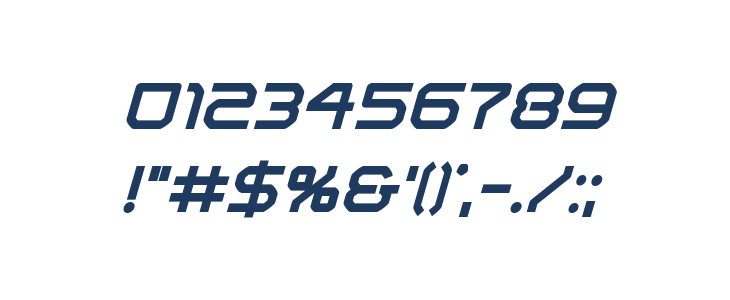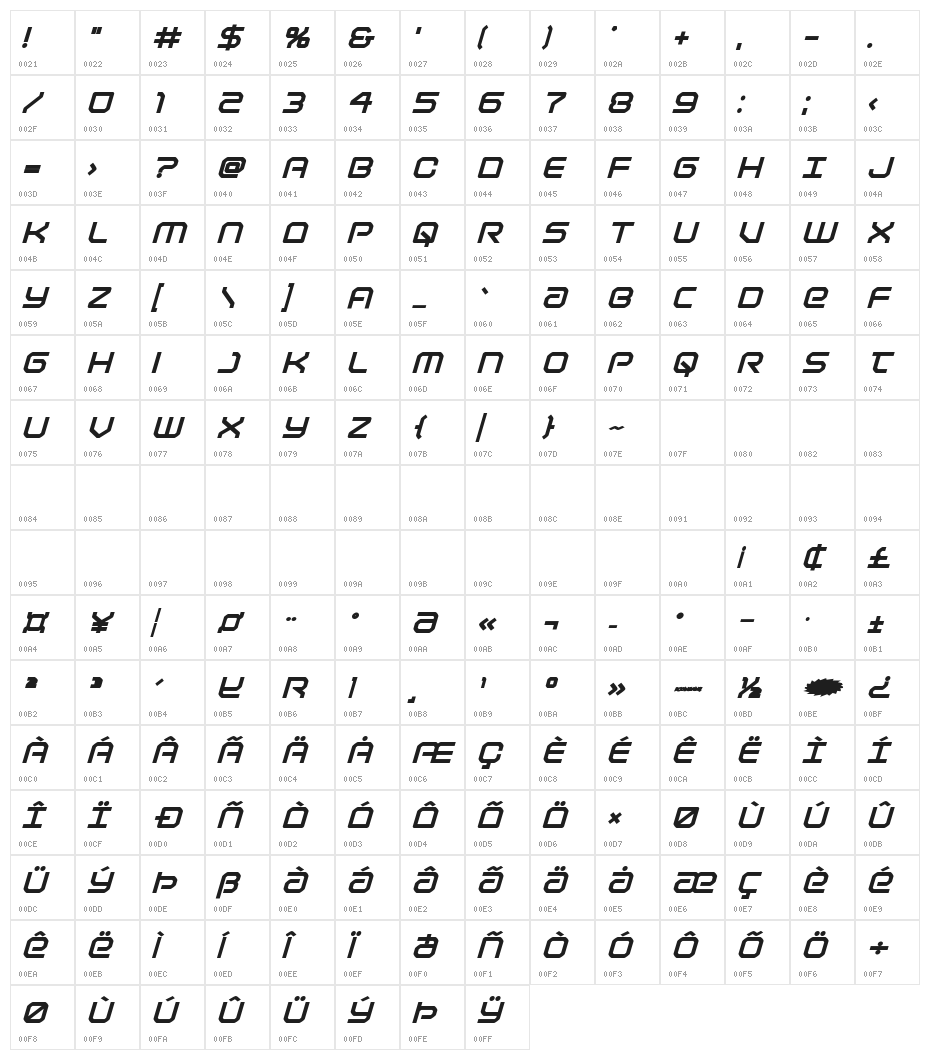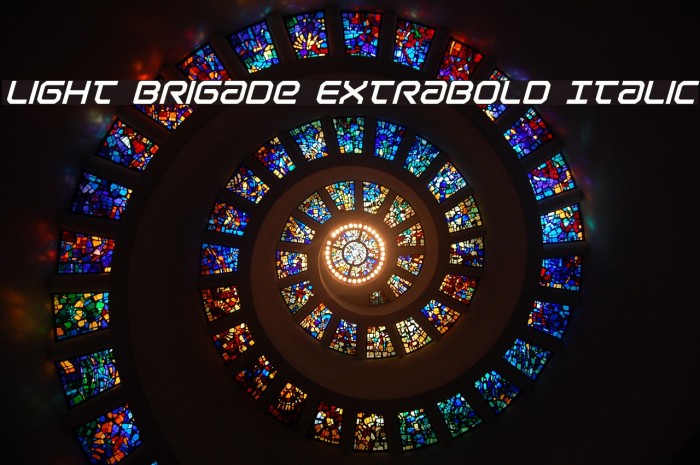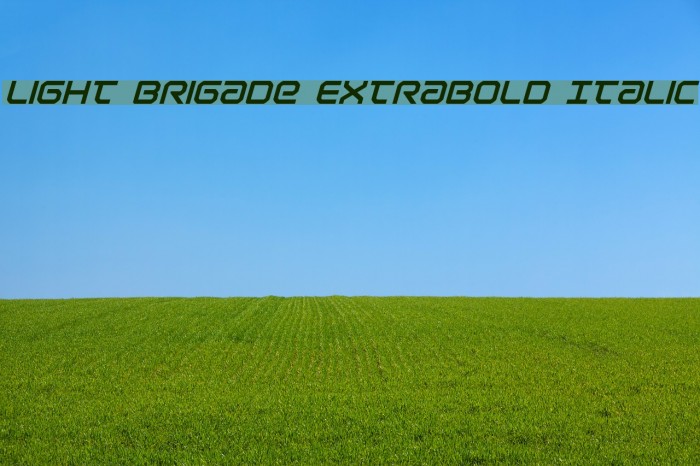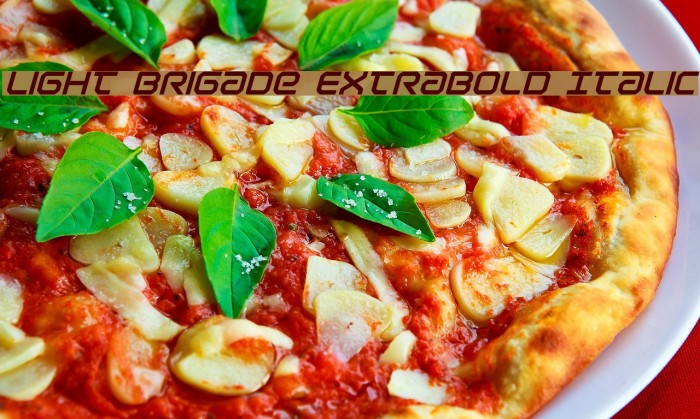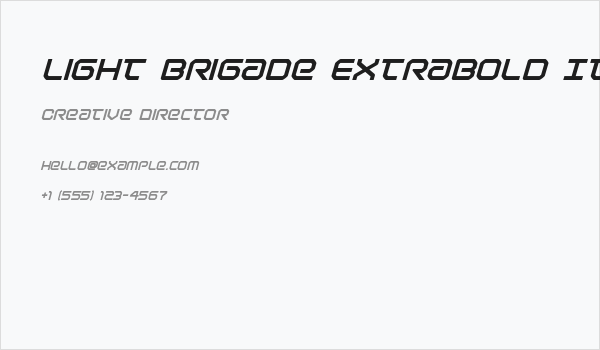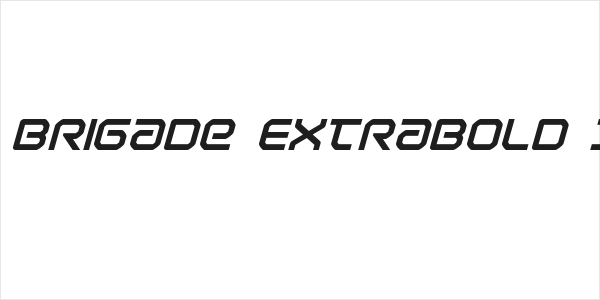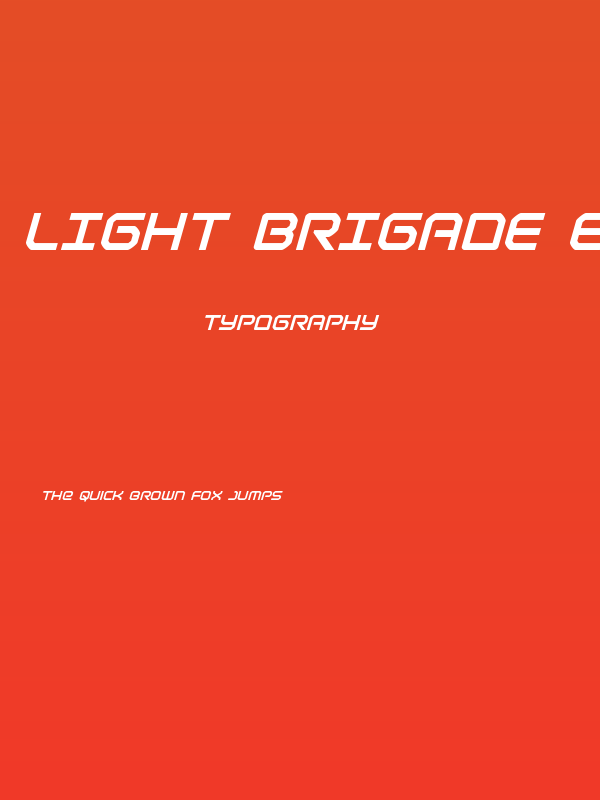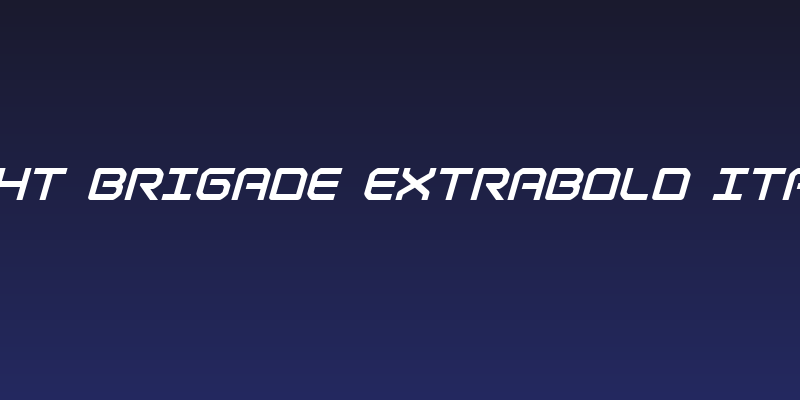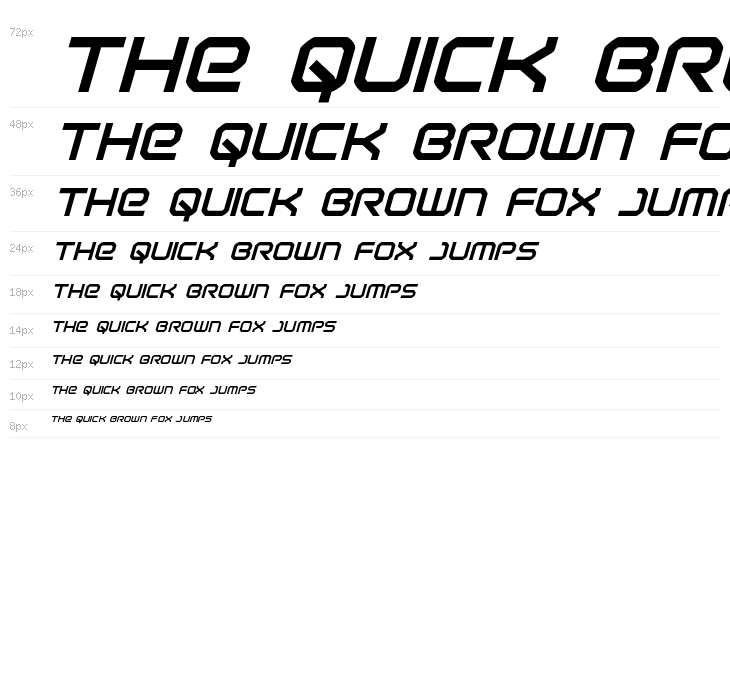
Light Brigade ExtraBold Italic Font
Light Brigade ExtraBold Italic Description
This font features a bold and italicized style with a modern and dynamic appearance. The characters are designed with a forward-leaning slant, giving a sense of motion and energy. The strokes are thick and consistent, providing a strong visual impact. The geometric shapes and sharp angles contribute to a futuristic and sleek look. The font maintains a uniform width across all characters, ensuring readability and balance. The numbers and special characters are crafted to match the boldness and style of the alphabet, making it suitable for various applications.